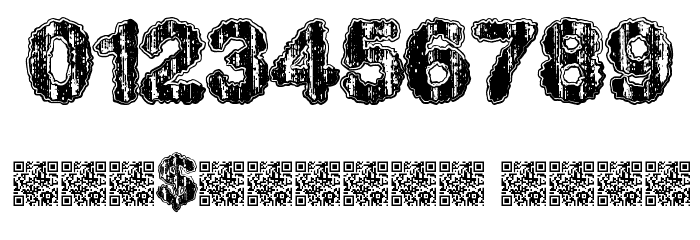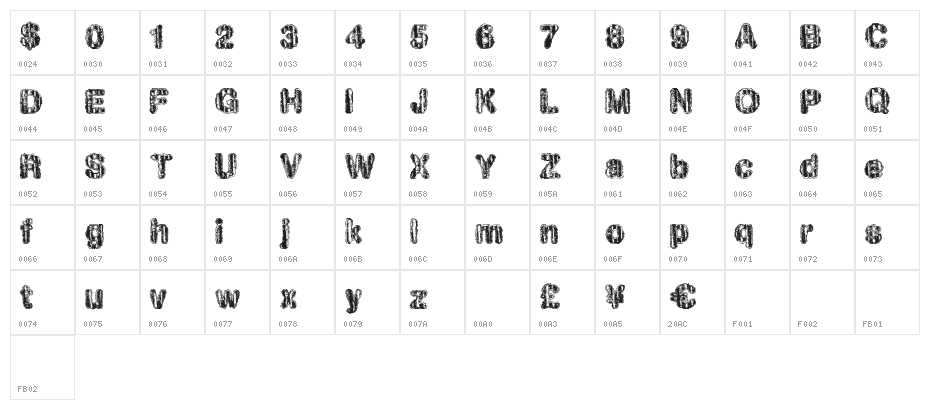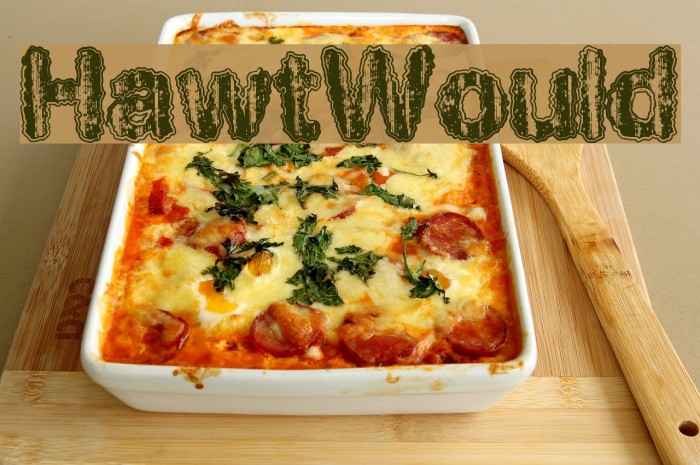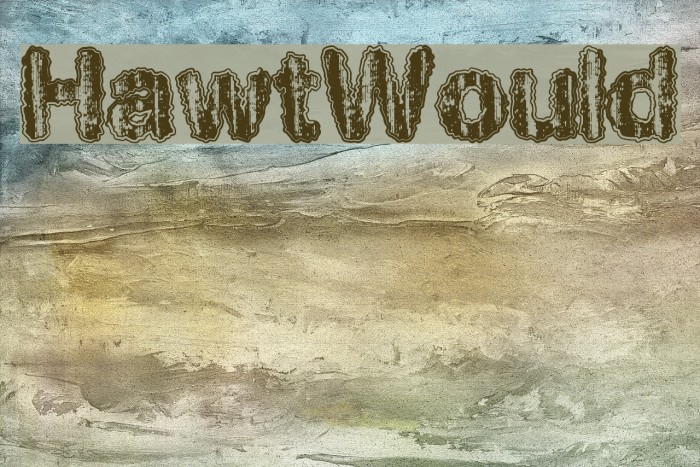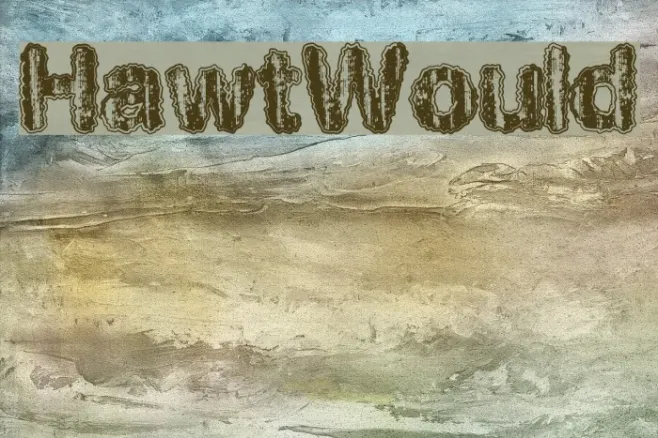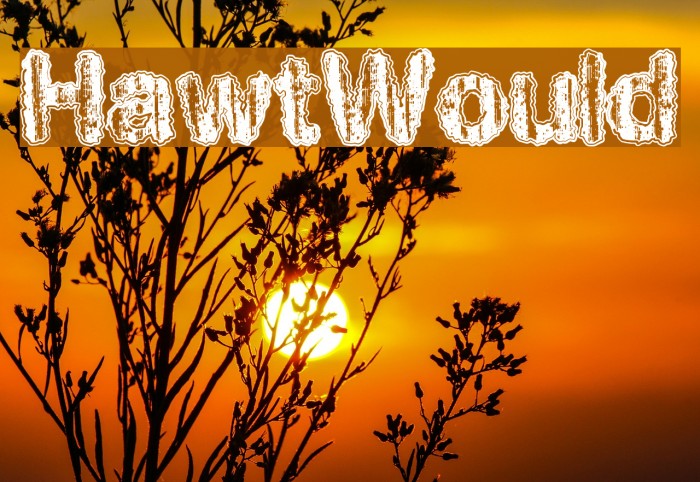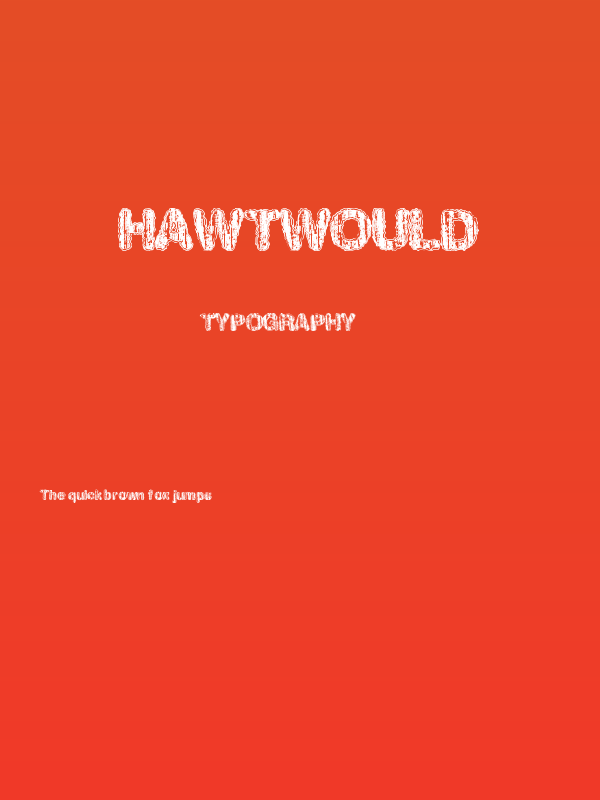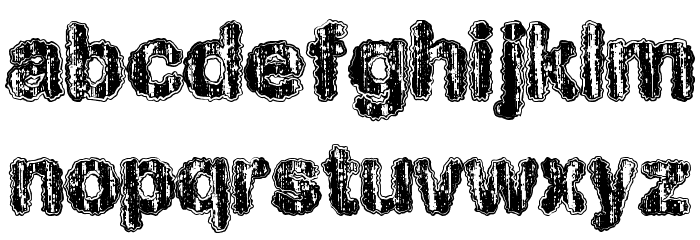
HawtWould Font
HawtWould Description
This font features a bold, textured design with a distressed, grunge-like appearance. Each character is outlined with a thick, uneven stroke that gives it a rugged and edgy look. The letters are uppercase and lowercase, with numerals and special characters, all maintaining the same distressed style. The texture within each character is reminiscent of a rough, hand-drawn effect, adding a unique and artistic flair. This font is ideal for projects that require a bold statement or a creative, unconventional look.
| Overall Style | Grunge, Artistic |
| Proposed Projects | Ideal for album covers, posters, streetwear branding, and edgy graphic designs. |